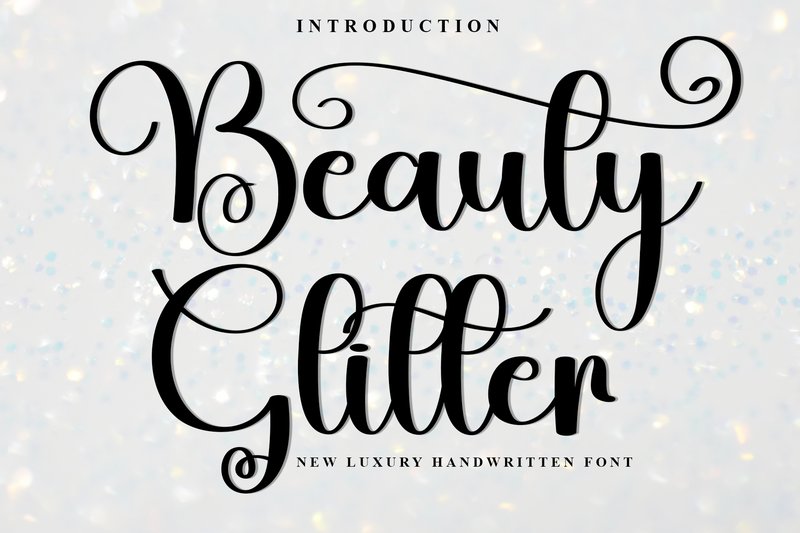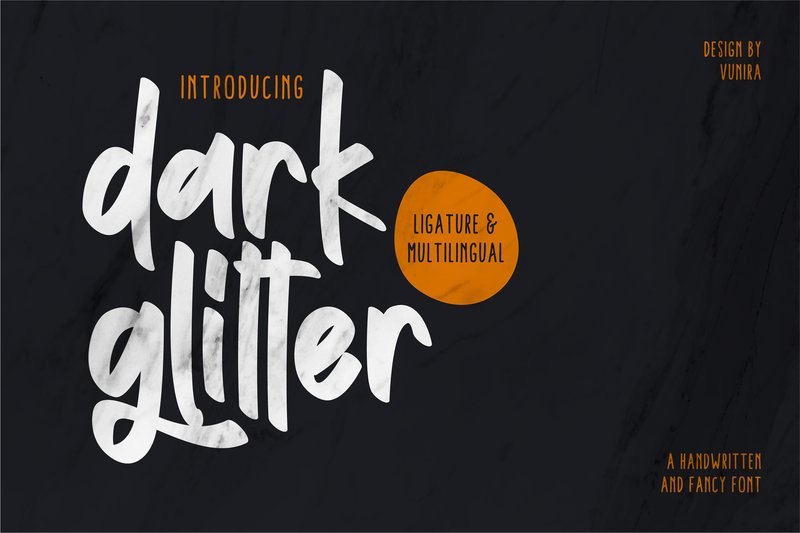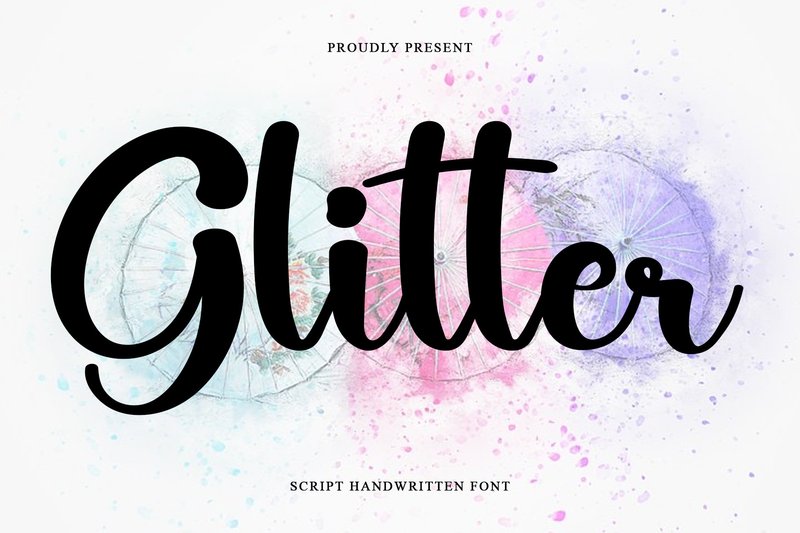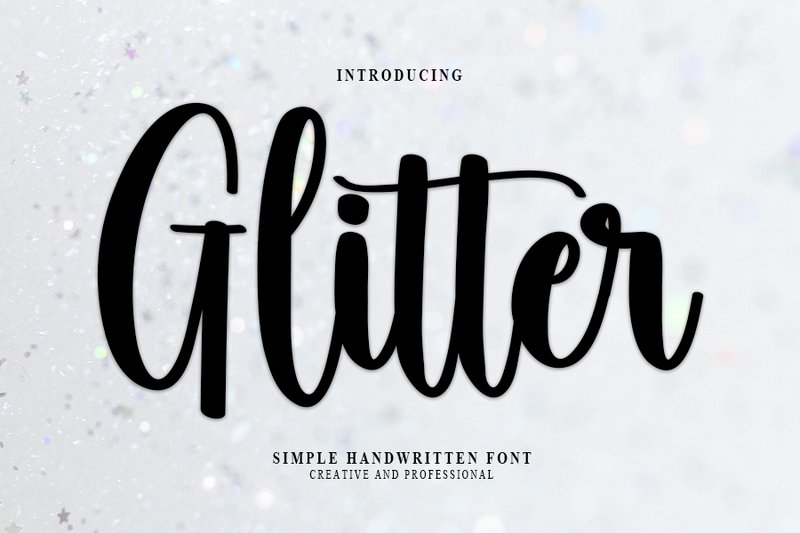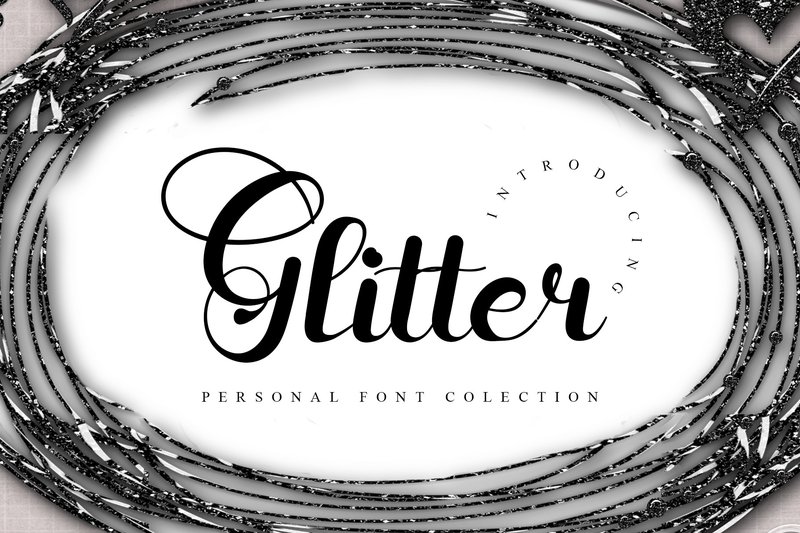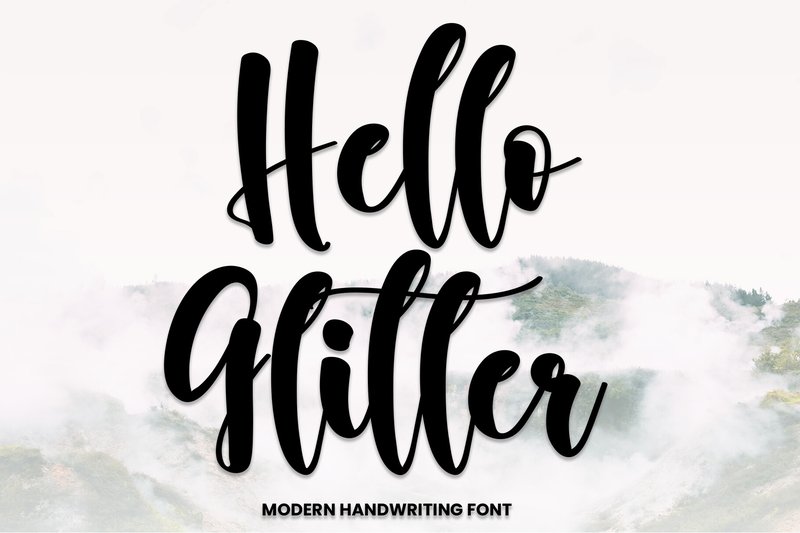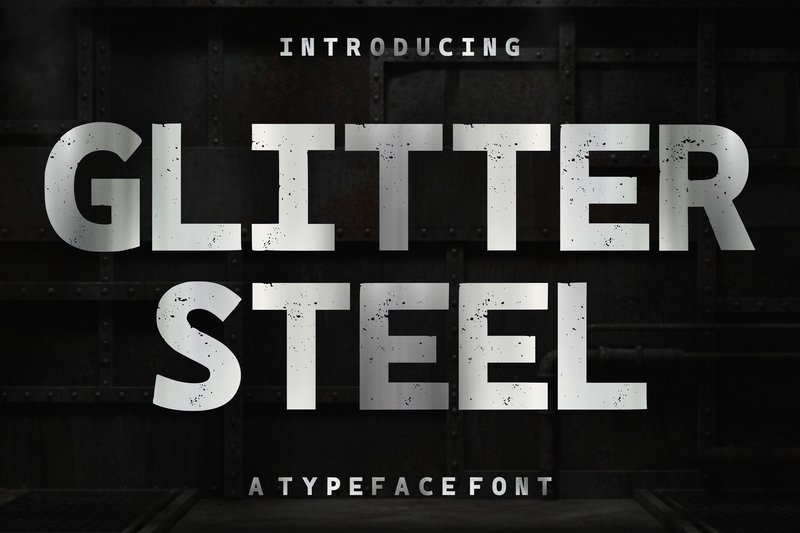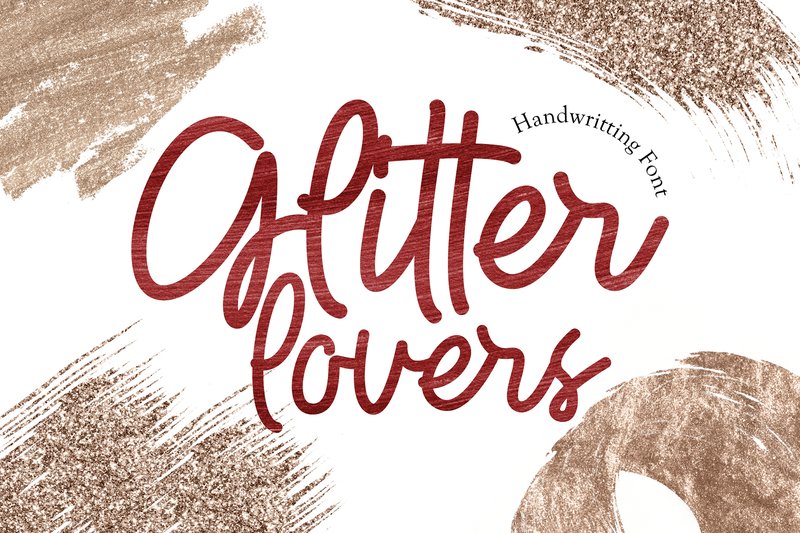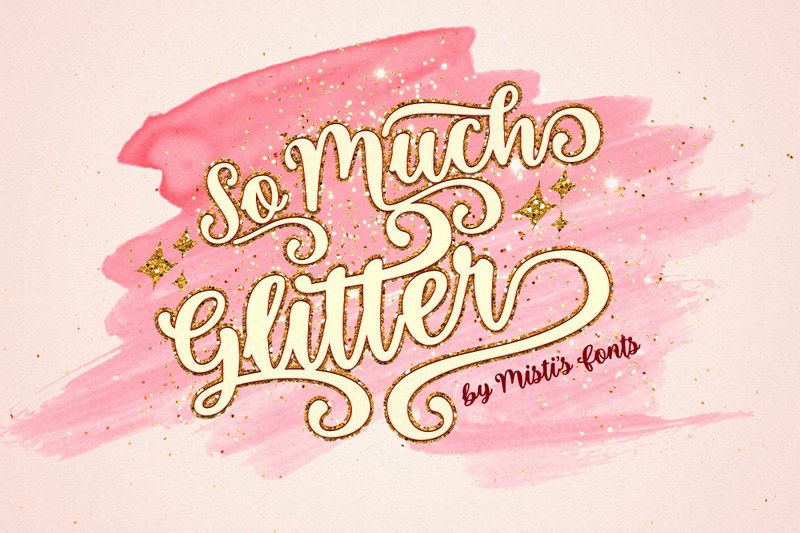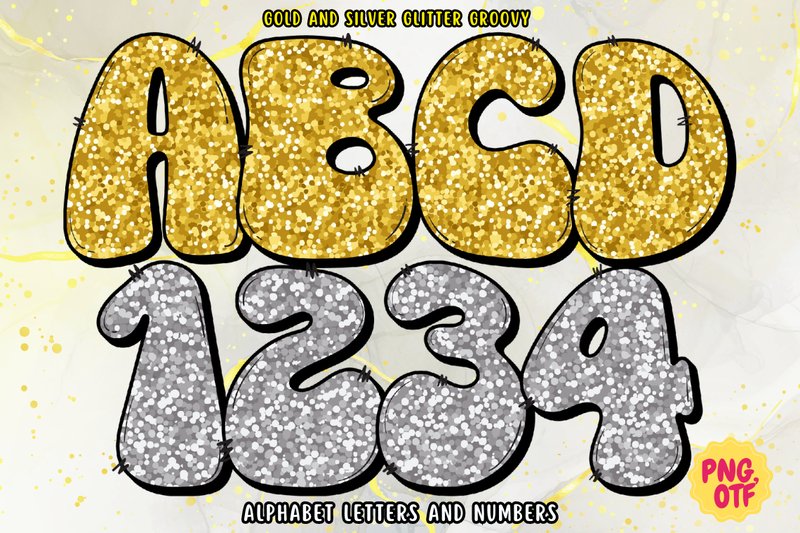
Ready to add some serious sparkle to your projects? In the design landscape of 2026, maximalism and tactile textures are reigning supreme. Glitter fonts are at the forefront of this trend, offering an instant touch of glamour and fun that’s perfect for everything from social media graphics and party invitations to standout branding and DIY crafts. They capture a vibrant, celebratory energy that resonates with current styles. We’ve curated this selection of 23 popular and dazzling glitter fonts that are perfect for making your designs truly unforgettable this year. Let’s dive into the shimmer!
1. Beauty Glitter (by Inermedia STUDIO)
Beauty Glitter (by Inermedia STUDIO) is a flowing handwritten font that strikes a perfect balance between spontaneous charm and refined elegance. Its calligraphic strokes dance across the page, infused with a shimmering texture that feels both luxurious and approachable. This font doesn’t just write words; it adorns them with a timeless sparkle, making it an incredibly versatile choice for projects that demand a personal yet sophisticated touch.
- Elegant, flowing script with natural connections
- Subtle, high-resolution glitter texture integrated into each character
- A distinct and timeless handwritten style with classic calligraphic roots
- Wedding invitations, save-the-dates, and elegant event stationery
- Luxe branding for beauty, fashion, and lifestyle brands
- Striking social media quotes and promotional graphics
2. Dark Glitter (by Vunira)
Dark Glitter (by Vunira) exudes a magnetic charm, blending the warmth of a friendly, handwritten script with a sophisticated, textured sparkle. Unlike overly bright alternatives, this font delivers a more refined and intimate feel, making its natural, looping letterforms feel both personal and polished. It’s the perfect choice for designs that need a touch of glamour without sacrificing an ounce of authenticity.
- Authentic handwritten texture for a personal, organic feel
- Friendly and approachable character shapes
- Integrated glitter effect for a refined, built-in sparkle
- Natural, flowing letter connections for a cohesive script look
- Elegant social media quotes and announcements
- Stylish branding for boutique shops, bakeries, or craft businesses
- Custom invitations, greeting cards, and event signage
- Eye-catching headers for blogs and promotional banners
3. Glitter (by PiPi Creative)
Glitter (by PiPi Creative) bids farewell to generic, uninspired scripts. This font elevates handwritten typography by blending a deeply personal, neat calligraphic style with a sophisticated, elegant touch that feels both high-end and approachable. Its incredibly distinct letterforms create a timeless appeal, allowing you to craft spectacular designs that look custom-made, polished, and effortlessly chic. Fall in love with how it infuses every project with a signature flair that is both memorable and impeccably beautiful.
- Elegant, flowing letterforms with a clean and consistent stroke weight.
- A distinct, handwritten style that feels both personal and highly professional.
- Smooth connections between characters for a natural, seamless look.
- A timeless aesthetic that ensures longevity in branding and design projects.
- Luxury branding for beauty, fashion, and lifestyle businesses.
- Stunning wedding invitations, save-the-dates, and event stationery.
- Impactful social media quote graphics and boutique marketing materials.
- Adding a signature touch to logos, watermarks, and packaging designs.
4. Glitter (by ade studio)
Glitter (by ade studio) is a testament to the studio’s mastery of understated elegance. While many glitter fonts shout for attention, this one whispers. It delivers a cool, handwritten feel that feels both personal and incredibly chic. The delicate, carefully crafted letterforms possess a unique charm, offering a touch of sparkle without overwhelming the design. It’s the perfect choice for projects that require a hint of glamour that feels authentic and effortlessly modern.
- Authentic handwritten style with an organic, natural flow.
- Delicate and refined texture for a subtle sparkle effect.
- A unique character set that provides a custom, bespoke feel to typography.
- Elegant wedding invitations, save-the-dates, and event stationery.
- Branding for boutique lifestyle, beauty, or artisanal food products.
- Stylish social media quotes, post titles, and website headers.
5. Glitter (by GiaLetter)
Glitter (by GiaLetter) is effortlessly charming, bringing a dose of playful elegance to the modern script category. Its smooth, flowing lines and bouncy characters dance across the page, creating a relaxed and carefree feel that is both personal and polished. This font avoids stuffiness, instead delivering a fresh, contemporary style perfect for projects that need a touch of whimsical sophistication to truly shine.
- Smooth, flowing letterforms for a natural, handwritten feel
- A bouncy baseline that adds a touch of spontaneous energy